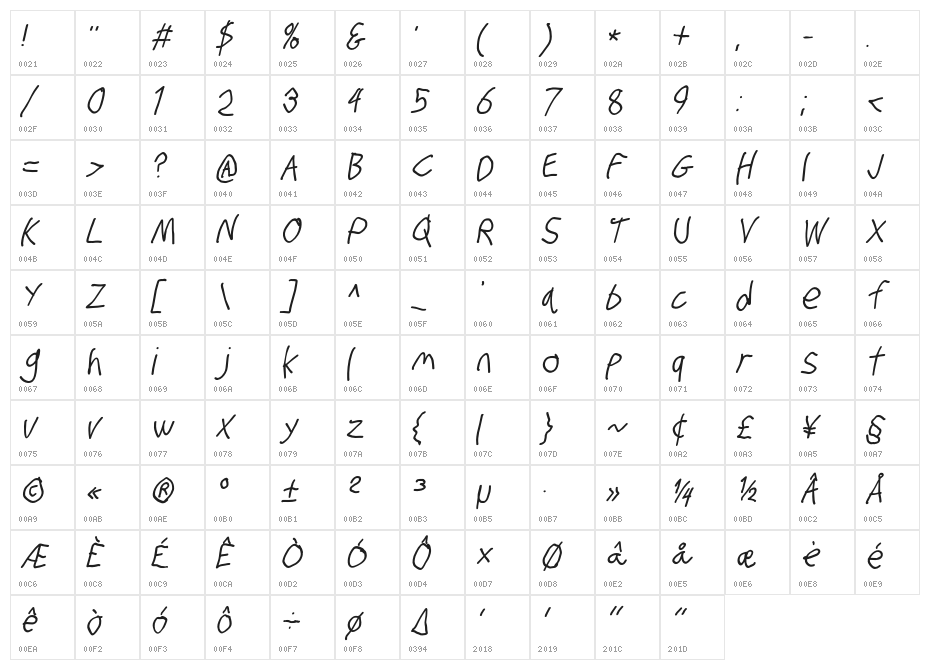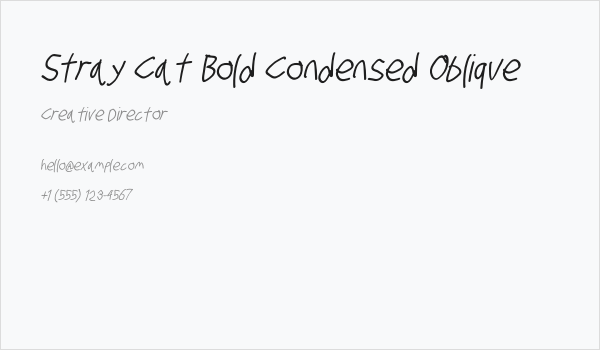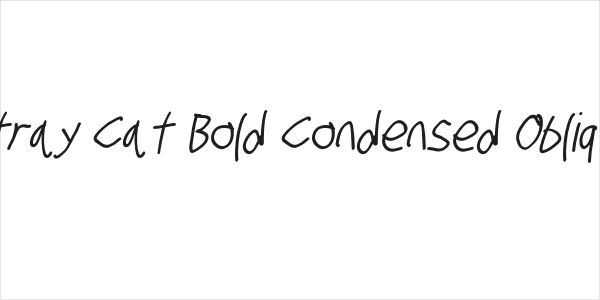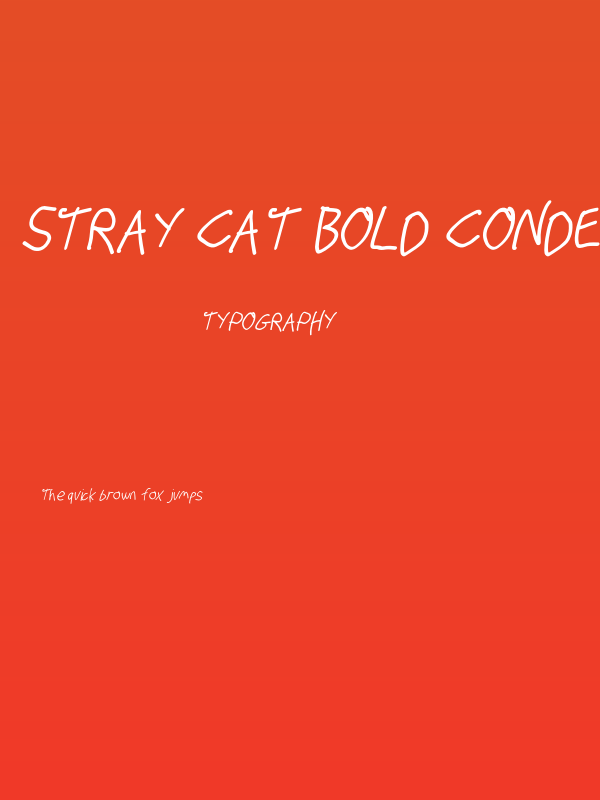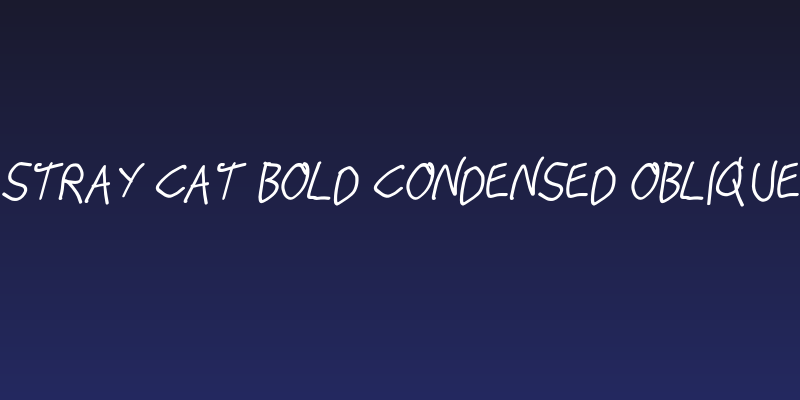
Stray Cat Bold Condensed Oblique Font
Stray Cat Bold Condensed Oblique Description
This font features a playful and casual handwritten style, characterized by its bold and condensed letterforms. The oblique slant adds a dynamic and informal touch, making it feel lively and energetic. Each character is uniquely crafted, with varying stroke thickness that gives it a personal and authentic look. The uppercase and lowercase letters maintain a consistent style, while the numerals and special characters complement the overall design. This font's organic and free-flowing nature makes it stand out, offering a sense of creativity and spontaneity.
| Overall Style | Casual and Playful |
| Proposed Projects | Ideal for creative projects such as greeting cards, posters, children's books, and branding that requires a personal touch. |